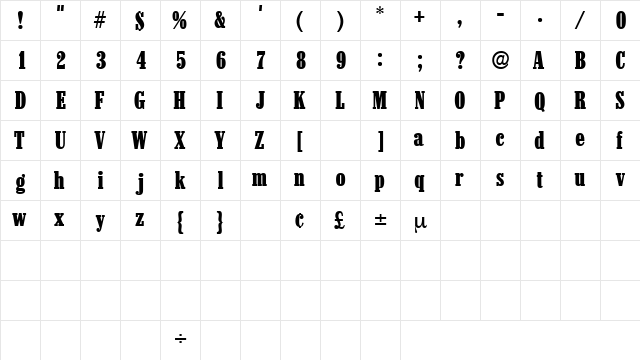
QuesadaDisplaySSK Regular
Design Context for QuesadaDisplaySSK Typeface
QuesadaDisplaySSK brings ornamental detail and strong personality to headlines and identities, where visual impact matters more than quiet functionality.
Font Pairing: Pair with a clean neutral sans-serif for body copy to let QuesadaDisplaySSK's character lead without overwhelming the composition.
Pro Tip: Use QuesadaDisplaySSK exclusively at display sizes — it was designed to be seen, not read at length. Let a neutral companion handle body copy.